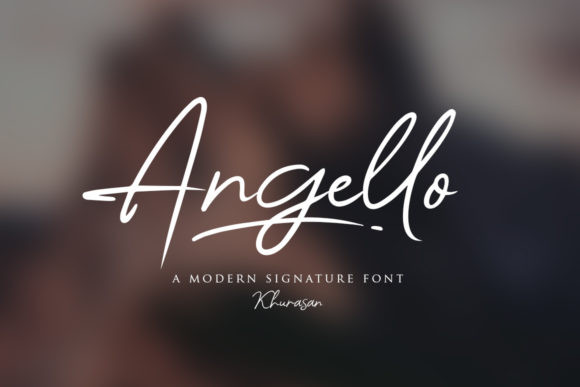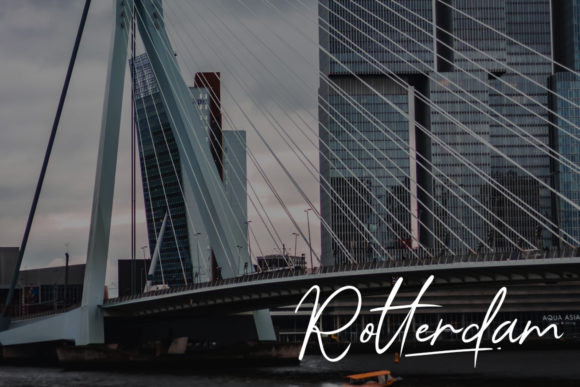
Angello Font
Angello is inspired by classic typography and brings its own unique style to any design project. It will elevate a wide range of design projects to the highest level, be it branding, headings, wedding designs, invitations, signatures, logos, labels, and much more!